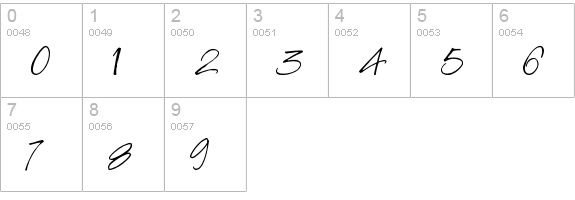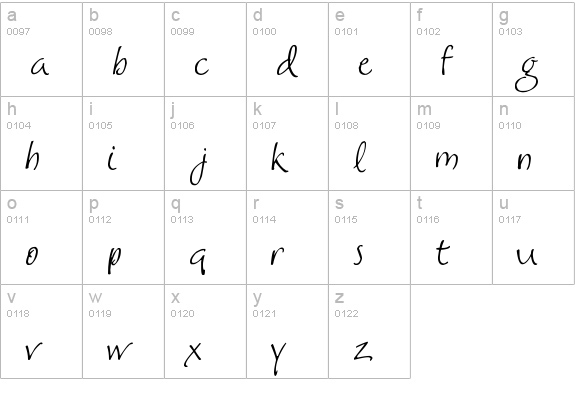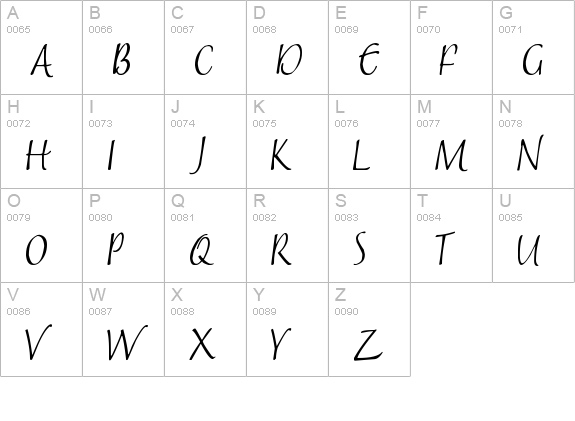
Milk & Cereal Font Details
Milk & Cereal font is a delightful and whimsical typeface that is perfect for adding a touch of playfulness to your designs. The rounded edges and quirky letterforms give this font a friendly and approachable feel, making it ideal for a variety of projects, from branding to children's books. This font is available for free download at FontsMarket.com, where you can easily access it and start using it in your creative endeavors. With its unique charm and versatility, Milk & Cereal font is sure to bring a smile to your audience's faces and make your designs stand out. Add a dash of fun to your projects with this one-of-a-kind font today!